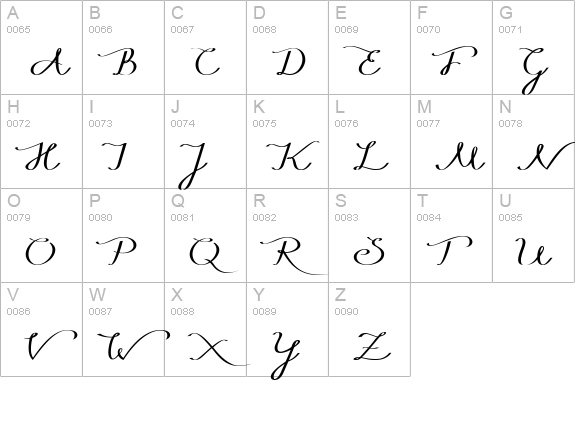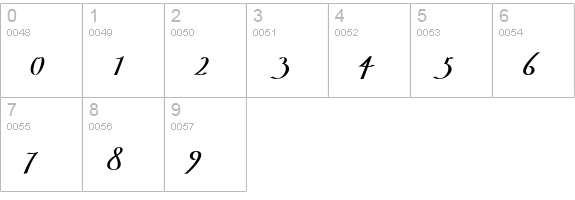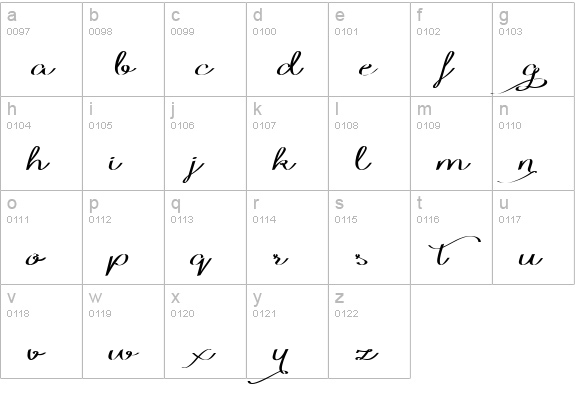
The Windy Rain Demo font is a stunning display font that exudes an elegant and sophisticated charm. Its unique design effortlessly combines elements of both modern and vintage typography, making it perfect for a wide range of design projects. With its graceful letterforms and delicate strokes, Windy Rain Demo adds a touch of sophistication to any creative endeavor. Whether you're designing a logo, creating eye-catching headlines, or composing elegant invitations, this font will elevate your work to new heights. What makes Windy Rain Demo even more appealing is that it is available for free! Yes, you read that right. This exquisite font can be downloaded at no cost from FontsMarket.com. This means that you can enhance your designs with professional-quality typography without having to spend a penny. Download Windy Rain Demo today and unlock a world of possibilities for your creative projects. With its free availability and captivating design, this font is a must-have for any designer, artist, or creative enthusiast. Don't miss out on this opportunity to enhance your projects with a font that combines elegance, versatility, and affordability.